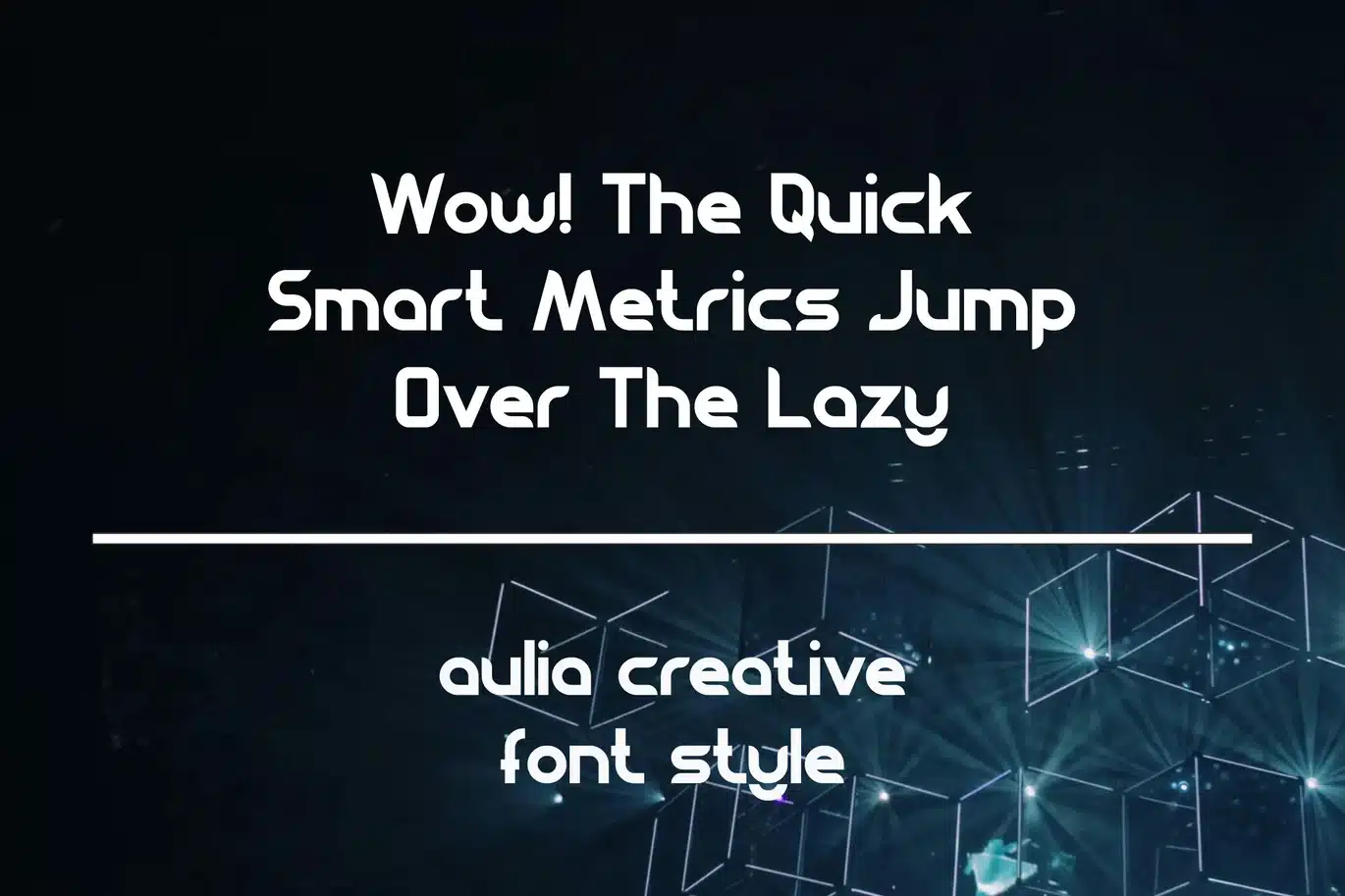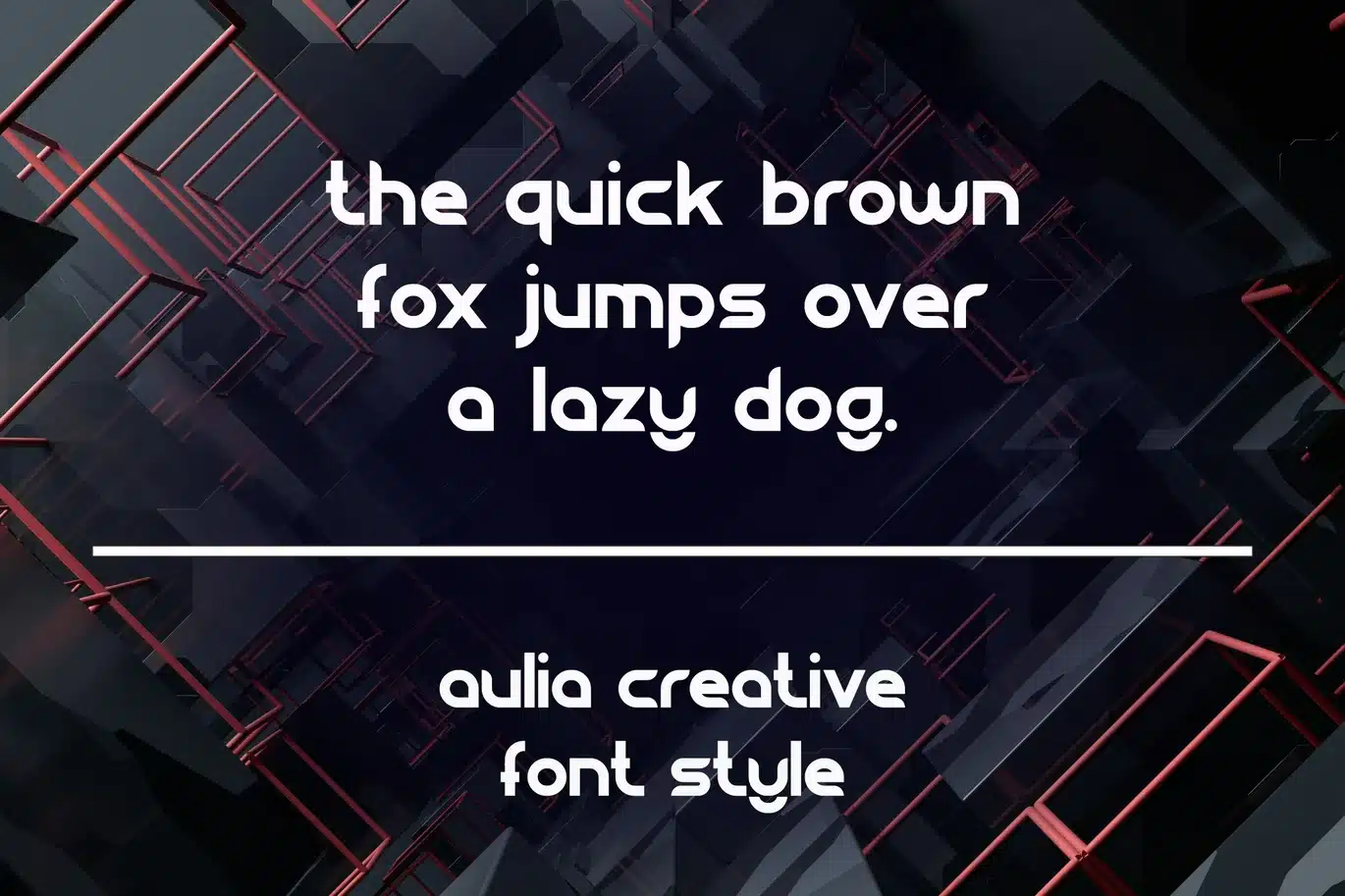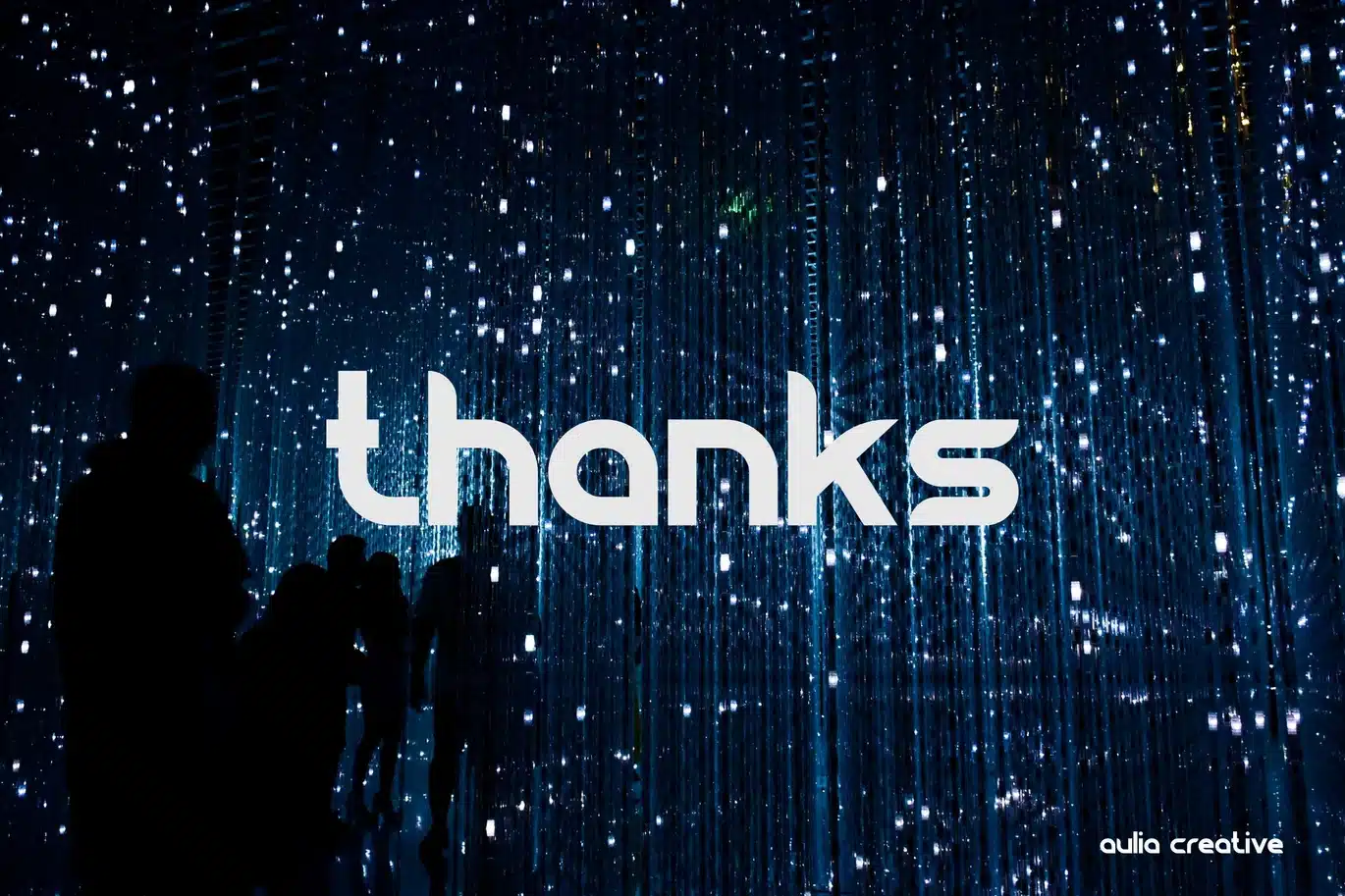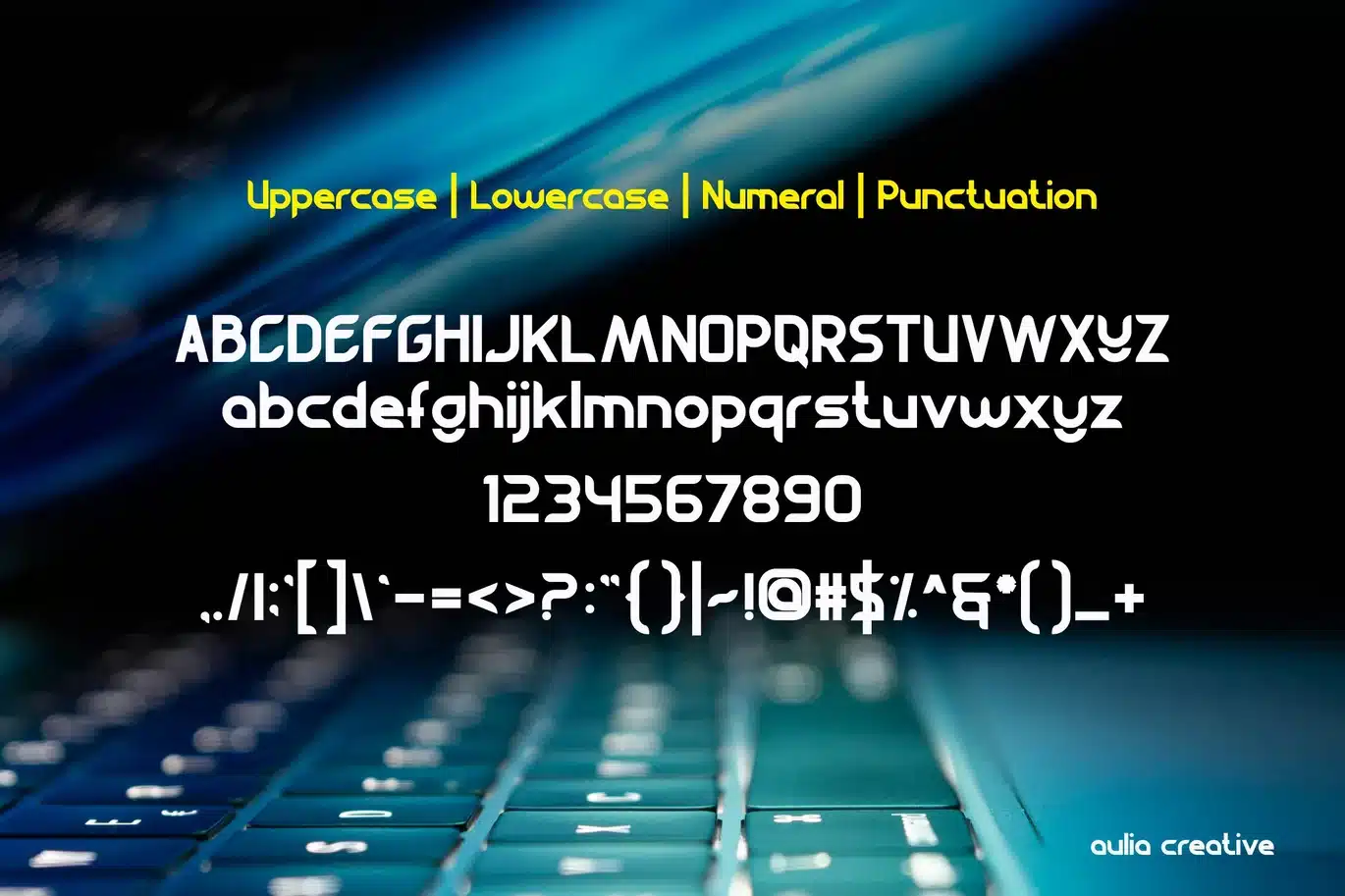
Geoty – Modern Display Digital Logo Typeface Font
Introducing our new product Geoty - Modern Display Digital Logo Typeface
Geoty - Modern Display Digital Logo Typeface & Logo Font and authentic display font.